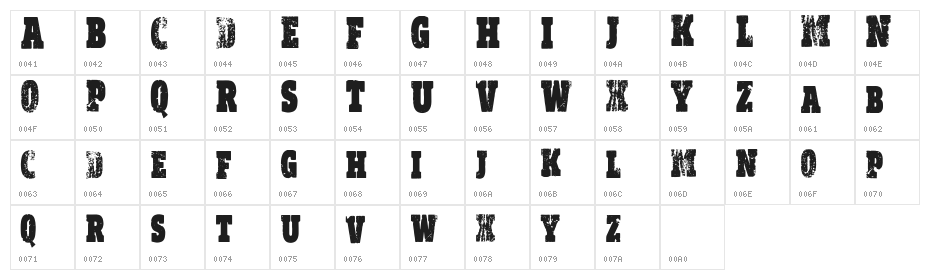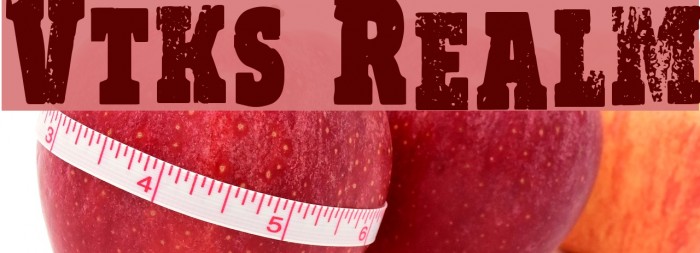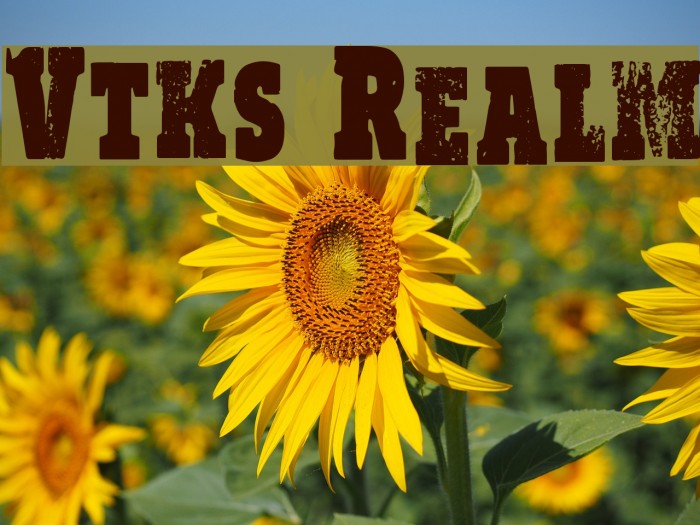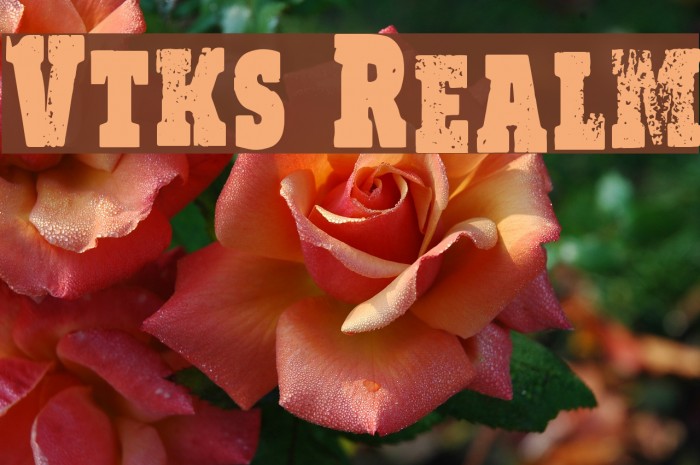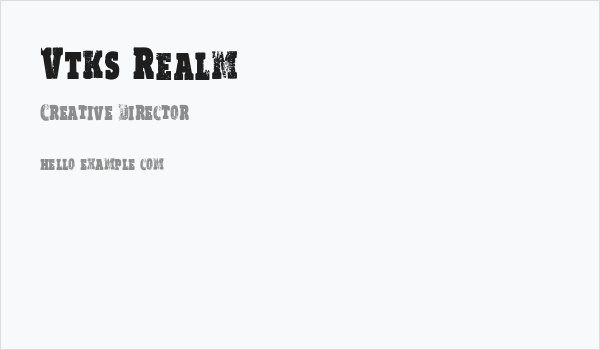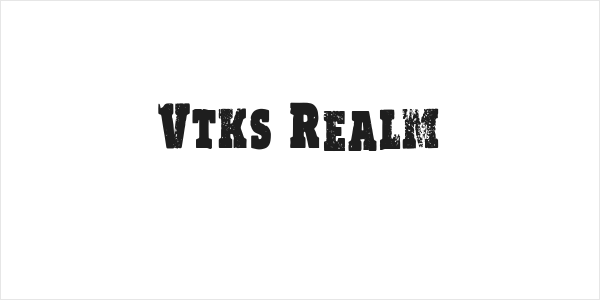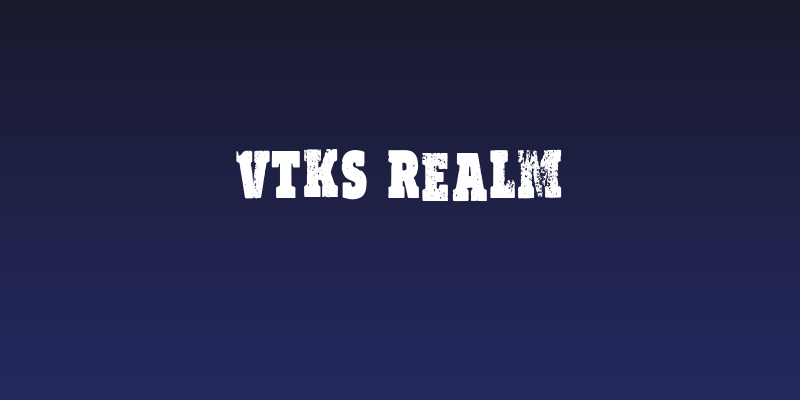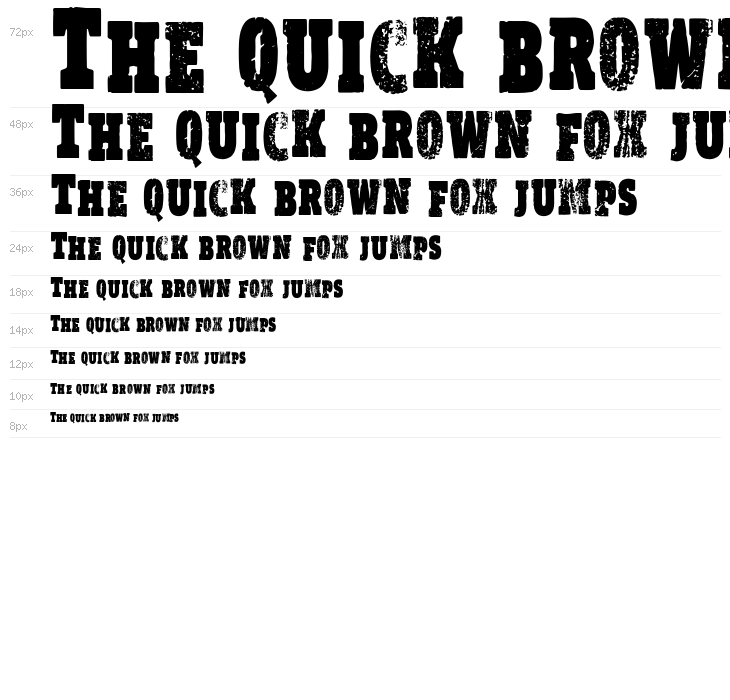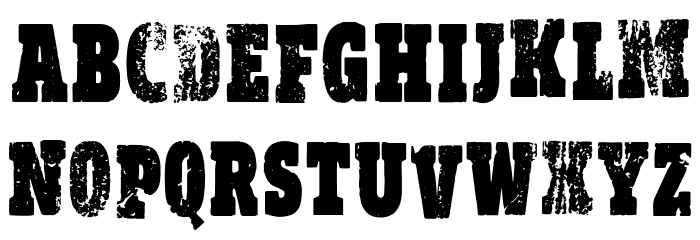
Vtks Realm Font
Vtks Realm Description
This font features a bold, distressed style with a grunge texture that gives it a rugged and worn appearance. The uppercase letters are prominent and impactful, making it ideal for designs that require a strong visual presence. The texture within each character adds depth and a tactile feel, reminiscent of vintage or industrial aesthetics. The font maintains a consistent weight throughout, ensuring readability despite its decorative elements. Its unique style is perfect for projects that aim to convey a sense of edginess or authenticity.
| Proposed Projects | Posters, album covers, branding for edgy or vintage-themed products, and event flyers. |